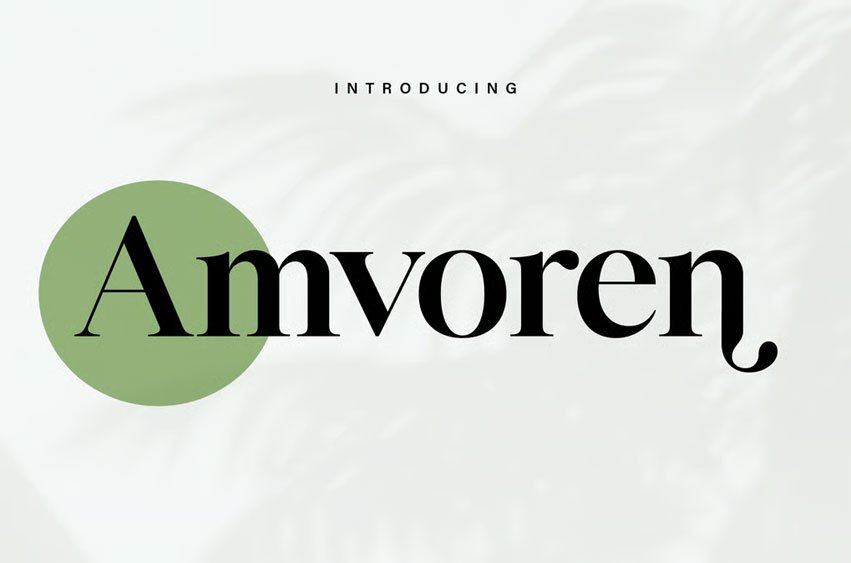
Amvoren Font is suitable for flyers, posters, novels, letterheads, or any design requirements you want to be awesome.
It will certainly amaze your readers.
Amvoren Font Preview